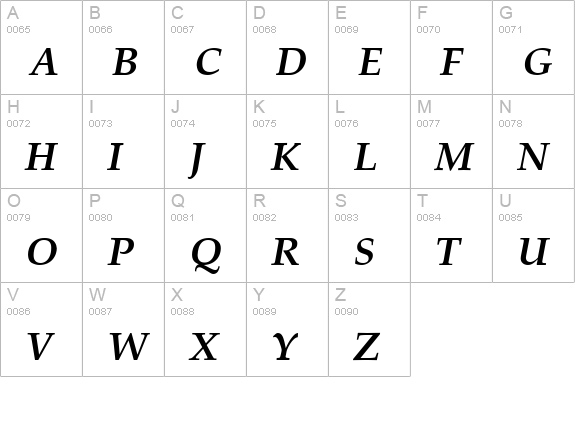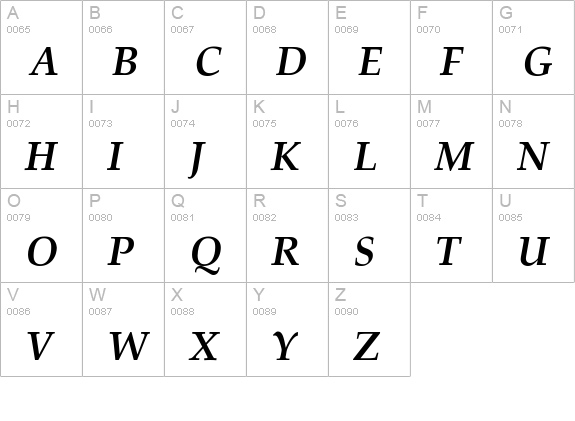
PalmSprings Bold Italic Font Details
PalmSprings Bold Italic is a strong, high-contrast, italic variant in the PalmSprings typeface family \xE2\x80\x94 well suited to headlines, attention-grabbing titles, and strong calls-to-action.
Introducing PalmSprings Bold Italic, a stunning font that effortlessly combines elegance with a touch of playfulness. This unique typeface captures the essence of the vibrant Palm Springs lifestyle, making it perfect for adding a touch of sophistication to any design project. With its bold and italicized letterforms, PalmSprings Bold Italic commands attention and exudes confidence. Each character is meticulously crafted, showcasing beautiful curves and clean lines that create a harmonious balance. The boldness of this font adds a sense of strength and power, while the italicized style adds a dynamic and contemporary flair. Whether you're designing a logo, creating eye-catching headlines, or crafting invitations for a special event, PalmSprings Bold Italic is the ideal choice. Its versatility allows it to shine in both print and digital mediums, making it a valuable asset for graphic designers, web designers, and typographers alike. What makes PalmSprings Bold Italic even more enticing is that it is available for free download at FontsMarket.com. Yes, you read that right - this exceptional font can be yours without spending a single penny. FontsMarket.com is a trusted source for high-quality fonts, and they are proud to offer PalmSprings Bold Italic as a freely accessible resource for designers and enthusiasts. So why wait? Elevate your designs with the luxurious and captivating PalmSprings Bold Italic font. Download it now from FontsMarket.com and unlock a world of creative possibilities. Embrace the freedom of expression and let PalmSprings Bold Italic take your designs to new heights.